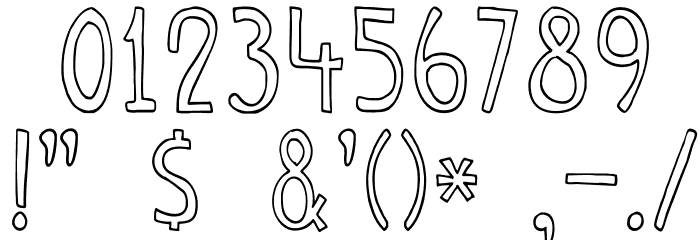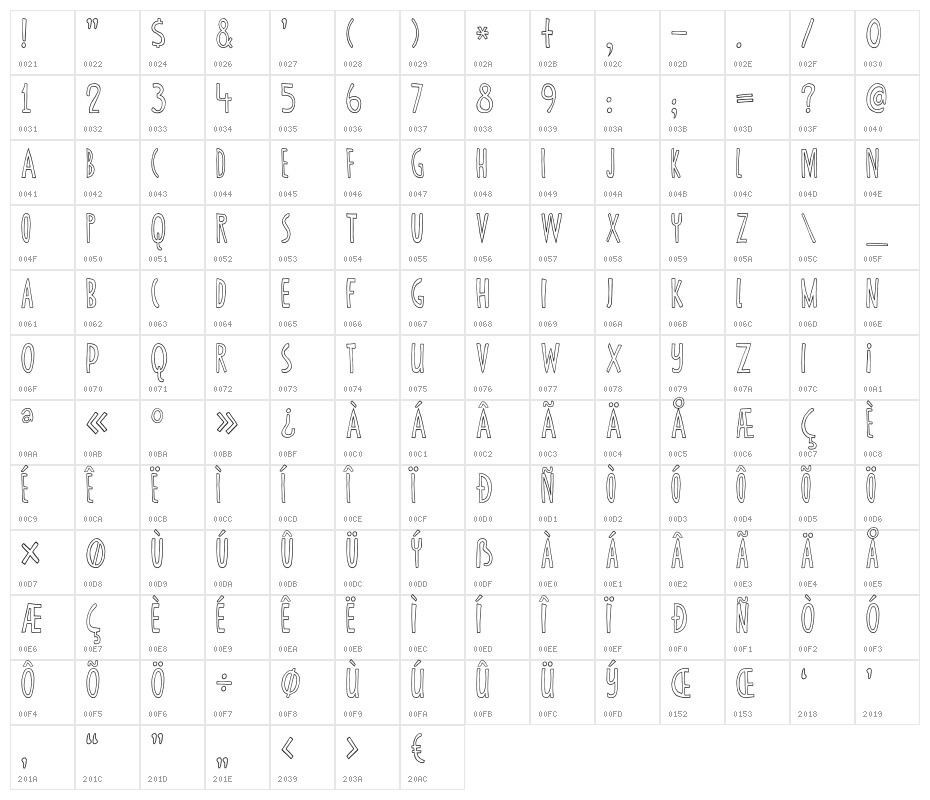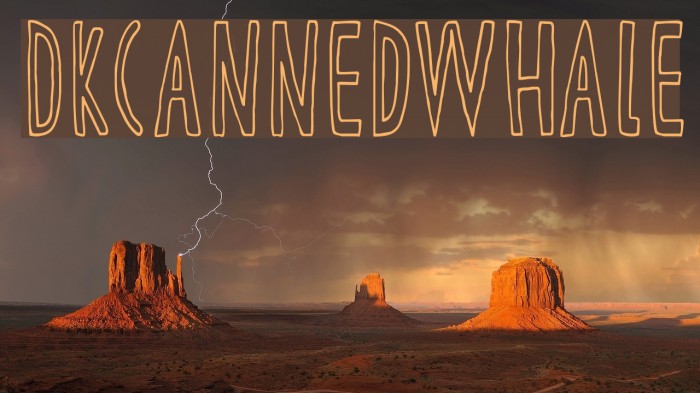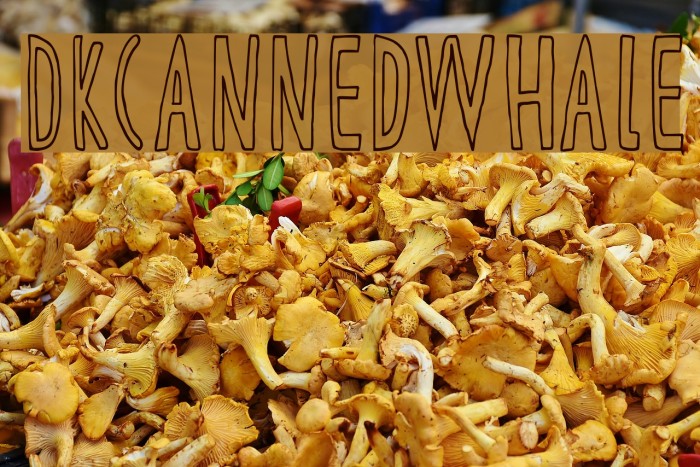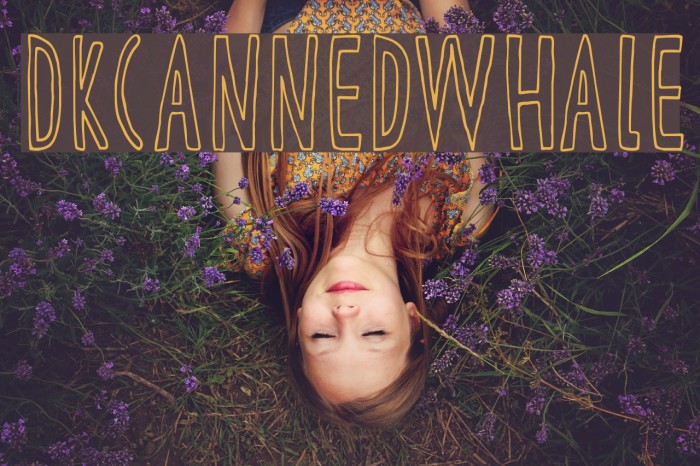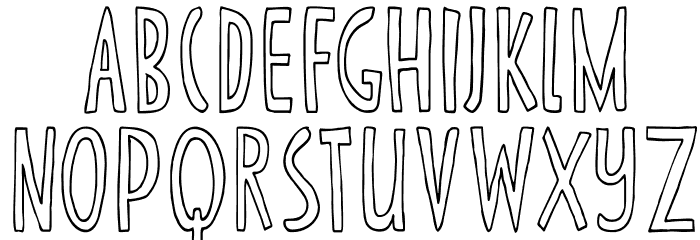
DKCannedWhale Font
DKCannedWhale Description
This font features a playful and quirky design with hand-drawn characteristics. The letters are tall and narrow, with a slight irregularity that adds to its charm. The strokes are consistent in width, giving it a uniform appearance despite its whimsical style. The numbers and special characters follow the same playful theme, making it suitable for creative and informal projects. The overall look is casual and friendly, making it ideal for designs that aim to convey a sense of fun and approachability.
| Proposed Projects | Ideal for children's books, playful branding, casual invitations, and creative posters. |